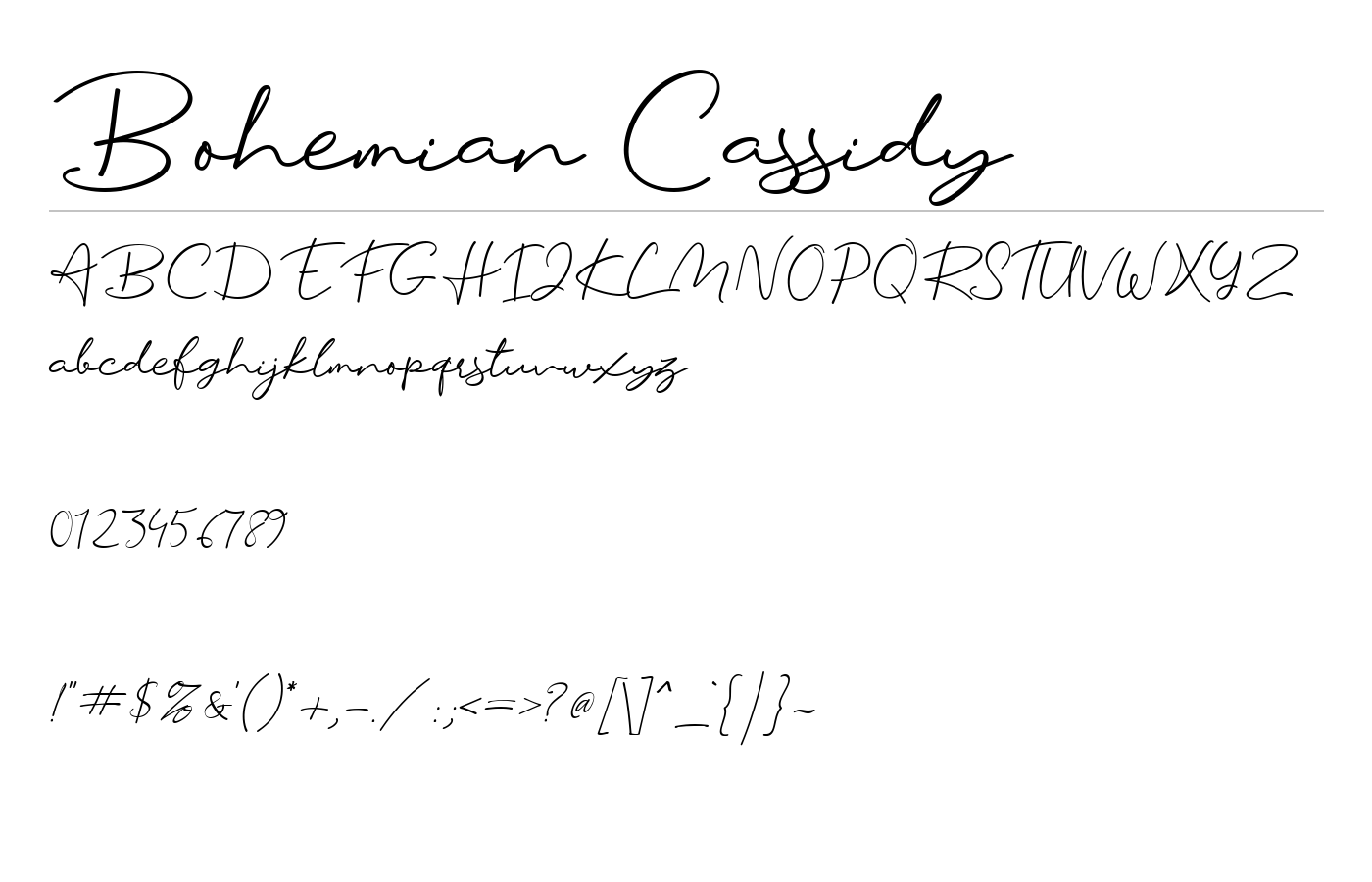
Bohemian Cassidy is a light, delicate script font that captures a casual, handwritten feel with elegant, flowing strokes. Its airy and slightly whimsical letterforms make it perfect for brands seeking a personal and approachable touch, ideal for invitations, fashion, lifestyle blogs, and creative projects that want a warm, friendly vibe. This font works best in headlines or short texts where its charming style can truly stand out.
Bohemian Cassidy Font
About Bohemian Cassidy Font
| Font family | Bohemian Cassidy Font |
| Designer | Rinaldo Hasibuan |